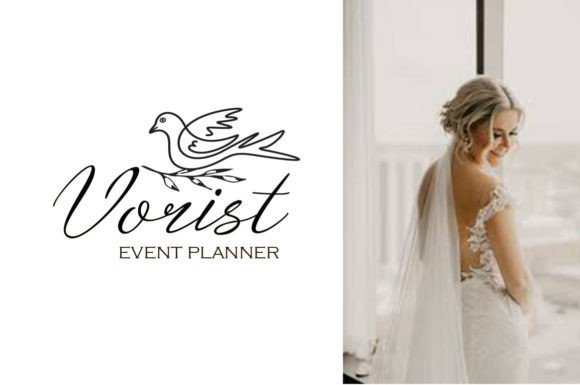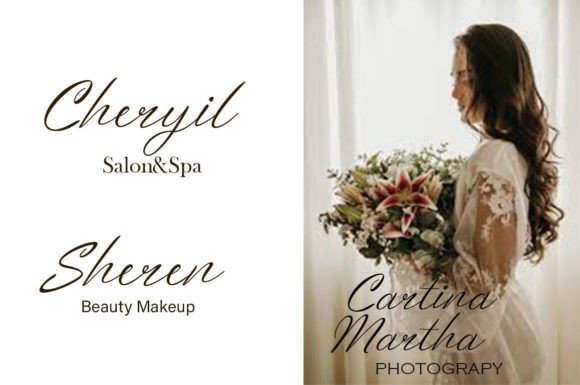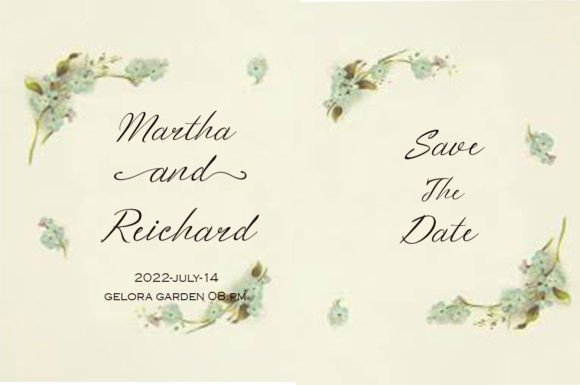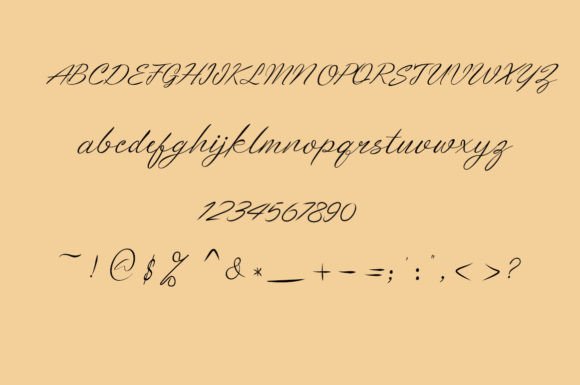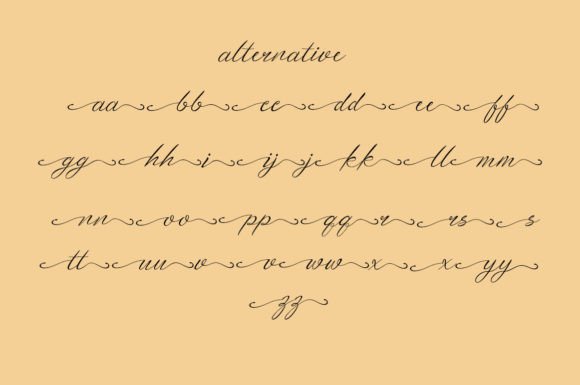
Introduction to Little Kitchen Font
Have you ever been in the midst of a creative project, pouring your heart and soul into a design, only to feel like something’s missing? Perhaps it’s the perfect font that would tie everything together. For designers, finding the right font can be the difference between a good design and a great one.
That’s where the Little Kitchen Font comes in – a clean and beautiful script font that’s sure to elevate any creation. With its transparent background and high-quality design, this font is a valuable addition to any design resource library. And the best part? It’s available for a free download, making it an accessible asset for designers of all levels.
Whether you’re working on a personal project or a client’s design, the Little Kitchen Font has the potential to bring your creative vision to life.
Key Features of Little Kitchen Font
- Unique Hand-Drawn Design: Little Kitchen Font features a charming, hand-drawn design that adds a personal touch to any creative project.
- Transparent Background: The Little Kitchen Font comes with a transparent background, making it easy to combine with other design elements and backgrounds.
- Perfect for Food and Lifestyle Brands: The Little Kitchen Font’s playful and whimsical design makes it an ideal choice for food and lifestyle brands, as well as any project that requires a warm and inviting tone.
- Customizable: The font’s unique design allows for easy customization, enabling users to experiment with different color combinations and layouts to suit their design needs.
Honest Review: Little Kitchen Font
I recently had the opportunity to work with the Little Kitchen Font on a creative project, and I’m excited to share my honest review.
What works well: ✨ The font is highly versatile and comes in a range of weights, making it perfect for any design project. I particularly loved using it for a recipe book design where the transparent background feature was a lifesaver. The font is also incredibly easy to customize and manipulate, allowing for endless possibilities.
- High Quality:** The font is incredibly well-designed and looks professional, even at small sizes.
- Design Resource:** This font is an excellent addition to any design resource library.
Limitations: ⚠️ While the font is incredibly versatile, it does have some limitations. For example, it’s not suitable for large-scale print projects where the font may become too pixelated. Additionally, some of the characters may not display correctly on older systems.
Overall impression: I was thoroughly impressed with the Little Kitchen Font and would highly recommend it for any design project where a high-quality, versatile font is required. Just be aware of the limitations and use it wisely.
Tips for Getting the Most Out of Little Kitchen Font
For optimal results, use Little Kitchen Font on a high-contrast background to make the text stand out. You can also experiment with different font sizes and styles to create visual interest.
Common Use Cases for Little Kitchen Font
Little Kitchen Font is ideal for designing food-related products, such as recipe books, food blogs, and restaurant menus. It’s also great for creating invitations, party decorations, and other creative projects.
Q: What are the technical details of the Little Kitchen Font?
The Little Kitchen Font is a TrueType font (TTF) with a transparent background, designed to work with most modern operating systems and design software. The font includes a range of characters, including uppercase and lowercase letters, numbers, and punctuation marks. We’ve also included a comprehensive character map, making it easy